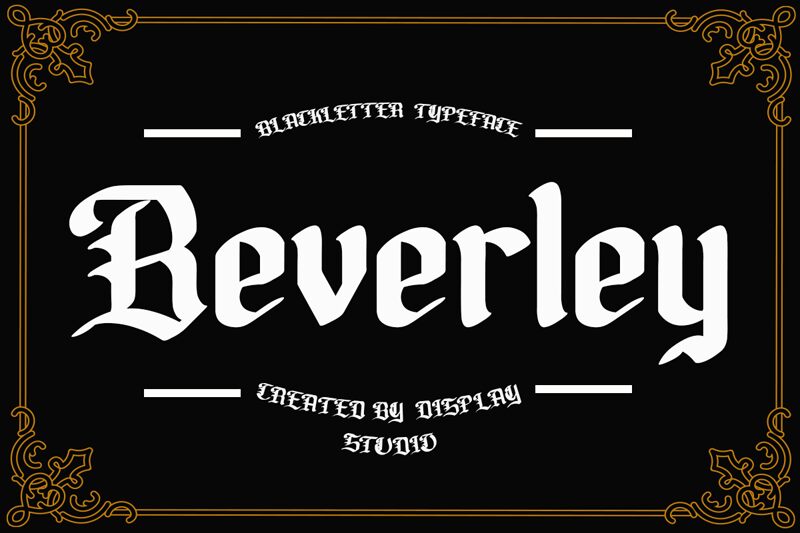
Beverley, the gothic font from Display Studio, is a modern take on a classic style. With its sharp angles and dramatic curves, this semi-bold typeface adds a touch of edge to any project. Suitable for everything from album covers to horror movie titles, Beverley is perfect for creating an atmosphere of mystery and intrigue. Its bold width commands attention while its clean lines make it easy to read even at smaller sizes. Whether you're designing a website or crafting an eye-catching logo, Beverley is sure to leave a lasting impression.